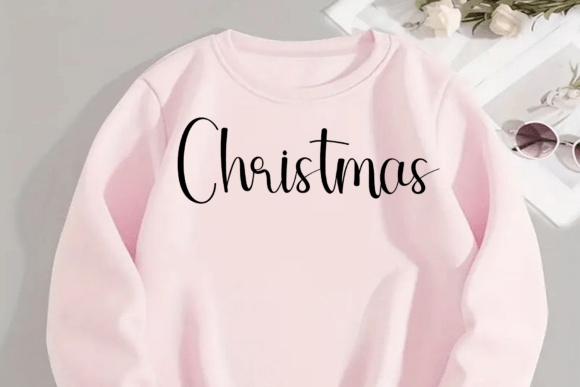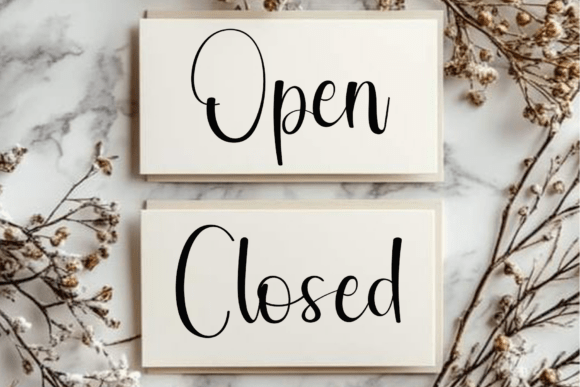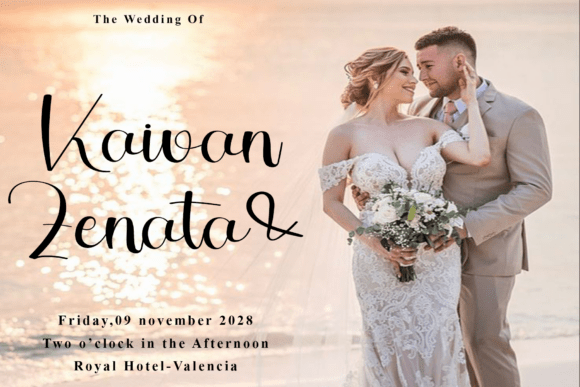
A Christmas Wish List for Designers: The Absolute Christmas Font
As the holiday season approaches, I find myself surrounded by twinkling lights, festive scents, and the warmth of loved ones. But amidst all the cheer, I always look forward to a moment of creative solitude, when the world slows down and I can let my imagination run wild. It’s in these quiet moments that I stumble upon the perfect font to capture the essence of the season – and this year, it’s the Absolute Christmas Font that’s caught my eye.
This exquisite script from the Modern Handwritten Collection is a masterclass in elegant calligraphy, perfect for adding a touch of sophistication to your holiday projects. Whether you’re designing high-end invitations, luxury branding, or refined seasonal stationery, the Absolute Christmas Font brings a unique and professional artistry to your work.
Key Features of Absolute Christmas Font
- Font Style: A festive, elegant font perfect for holiday designs and applications.
- Unique Characteristics: Features intricate, hand-drawn designs with subtle texture and ornaments, adding a touch of sophistication to holiday projects.
Review of Absolute Christmas Font
Overall, I’m impressed with the spirit of Absolute Christmas Font, but it’s a bit of a mixed bag.
- Cute, playful characters: The font has a clear festive feel to it, with ornaments and decorations that are sure to put you in the holiday mood.
- Good for titles and headings: The bold, eye-catching style makes it perfect for titles and headings in your designs.
- High-quality glyphs: The font includes a wide range of glyphs, including punctuation and symbols, which ensures that your designs will be consistent and professional-looking.
Limitsations ⚠️
- Limited font weights: The font only comes in a few weights, which can make it difficult to create subtle variations in your designs.
- No italic or oblique styles: This can limit the font’s versatility and make it harder to use in certain situations.
- May not be suitable for body text: While the font is great for titles and headings, it may be too ornate and distracting for use in body text.
Overall, I think Absolute Christmas Font is a fun and festive addition to any design project, but it’s not without its limitations. With a bit of creativity and flexibility, you can make it work for your designs.
For a cohesive look, use the “Absolute Christmas Font” consistently throughout your design.
Combine the font with festive graphics and colors to create a holiday theme.
Experiment with different font sizes and styles to add visual interest.
Use the “Absolute Christmas Font” for:
Holiday greeting cards and invitations
Christmas party decorations and signage
Winter-themed social media posts and ads